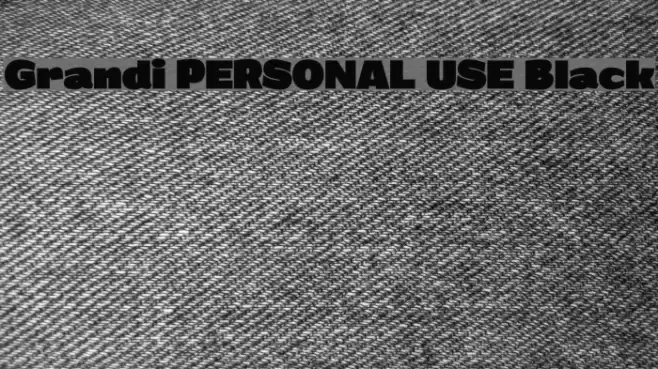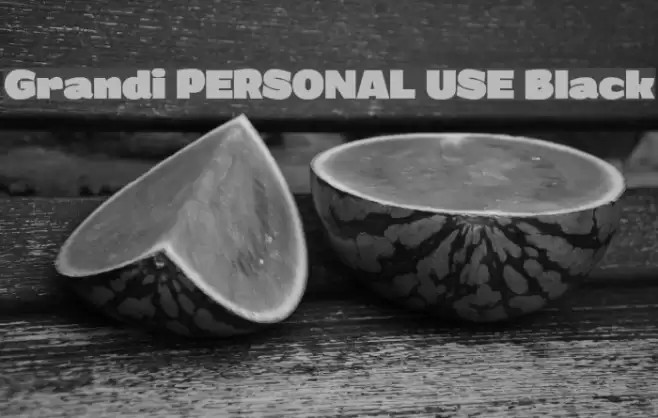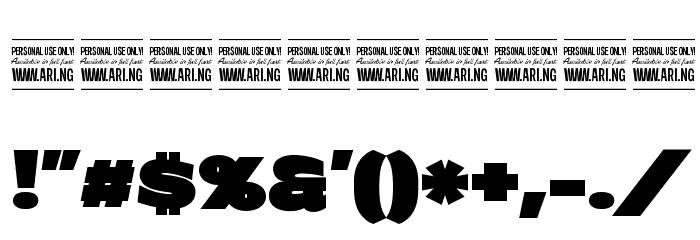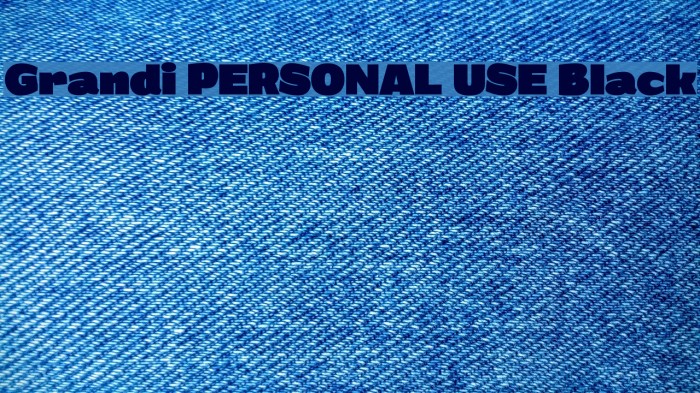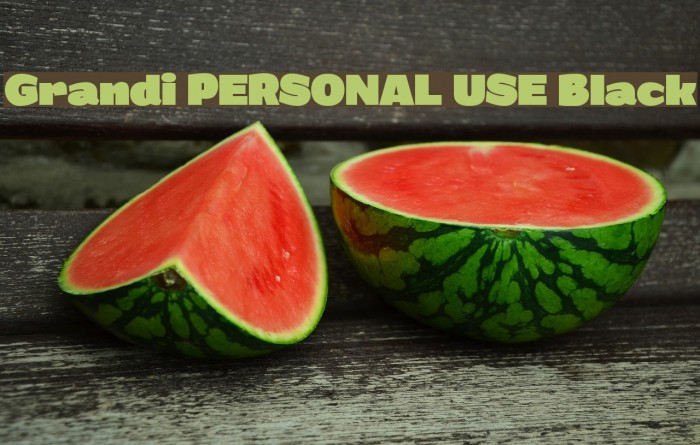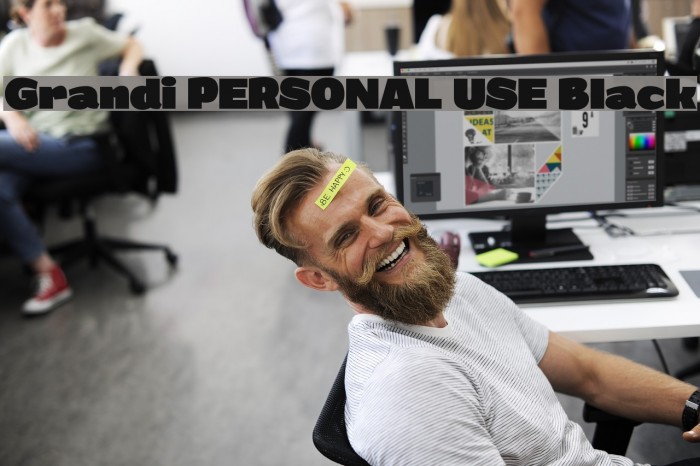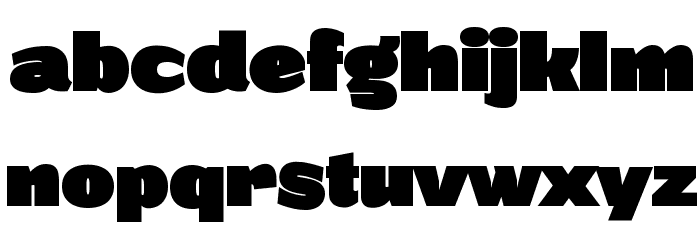
Grandi PERSONAL USE Black Font
Grandi PERSONAL USE Black Description
This bold and impactful font features thick, heavy strokes that create a strong visual presence. The uppercase and lowercase letters are designed with a consistent weight, giving the font a cohesive and unified appearance. The characters are slightly condensed, enhancing their boldness and making them ideal for attention-grabbing headlines. The font includes a full set of numerals and a variety of special characters, maintaining the same bold style throughout. Its high contrast between the thick strokes and minimal spacing between characters adds to its striking and assertive look.
A bold, high-contrast font with thick strokes and slightly condensed characters from Uncategorized fonts.
- Proposed Projects: Ideal for posters, headlines, logos, and branding materials that require a strong visual impact.